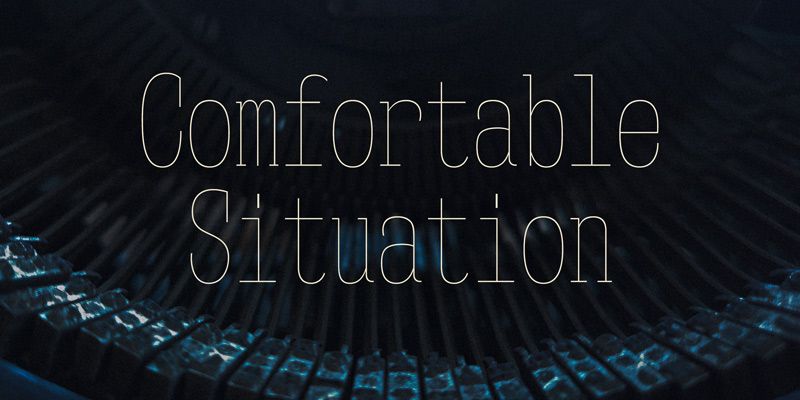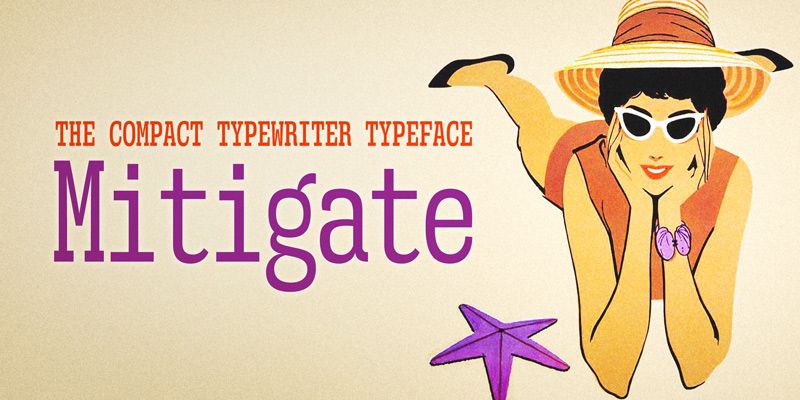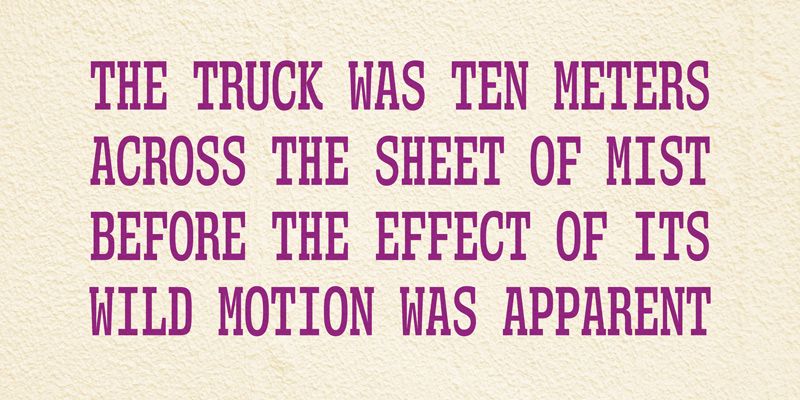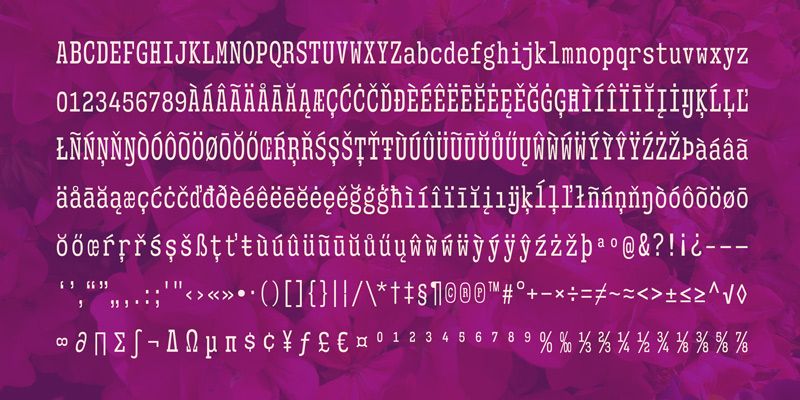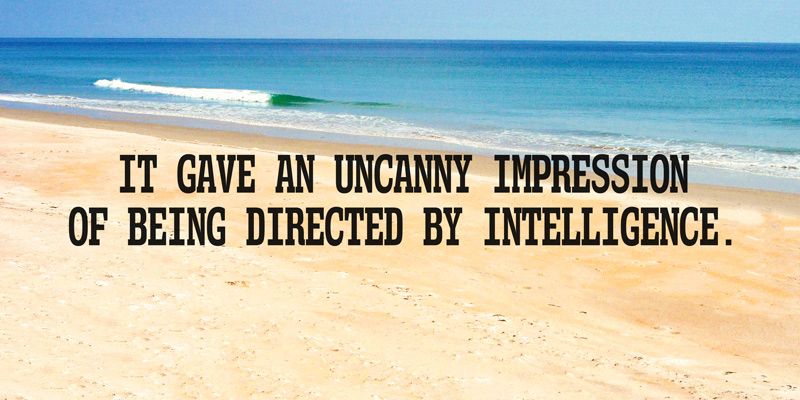
Mitigate compresses a slab-serif typewriter idea into a narrow, fixed-width rhythm. Its characters still line up in columns, but the condensed construction makes a list of codes, dates, and identifiers occupy less space than a typical monospaced face. Seven upright weights, from UltraLight through Bold, let a designer vary density while keeping the alignment intact. Use it for archival captions, instrument readouts, inventory graphics, or a title that should resemble tightly packed typed matter. The narrow proportions are part of its character, so give important information enough size to stay comfortable to read.